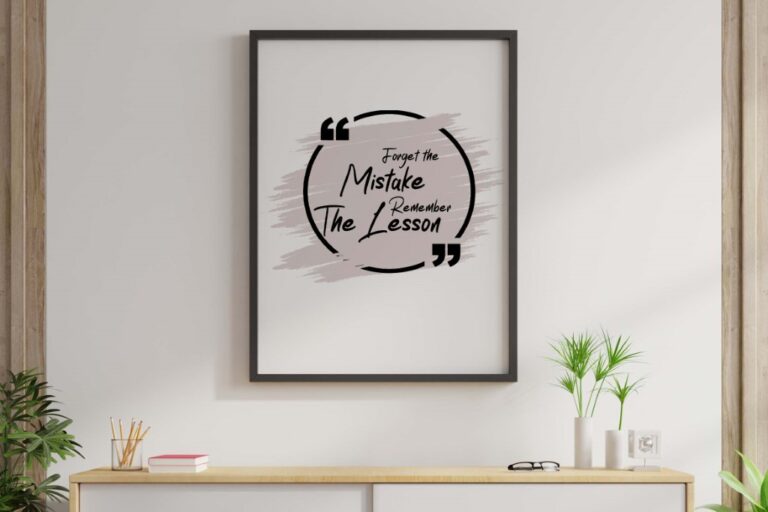
Amstrike
is a modern and bold script that is perfect for any modern design. It can be used for various purposes such as logos, wedding invitations, headings, t-shirts, letterhead, signage, labels, news, posters, badges and so much more